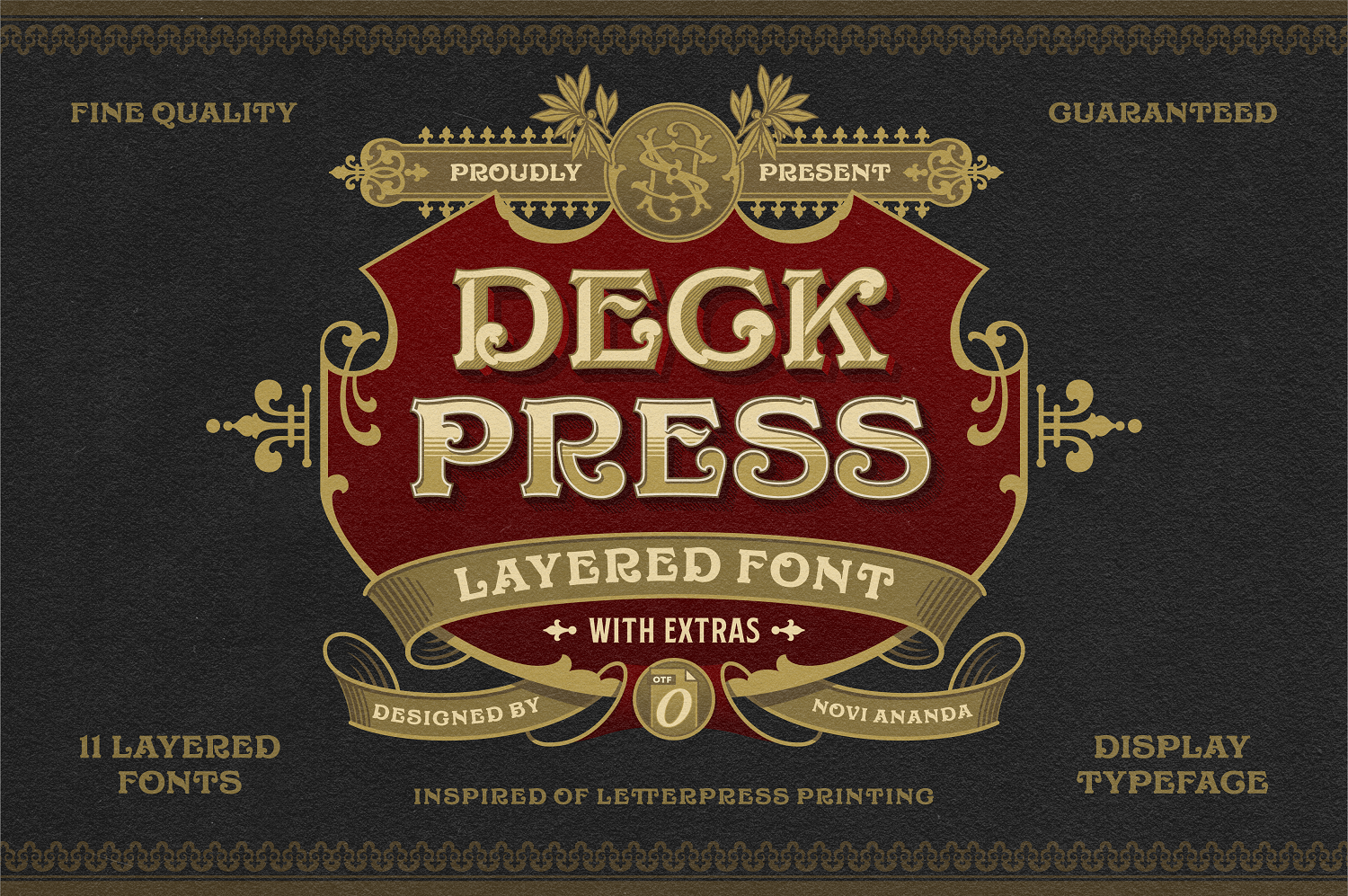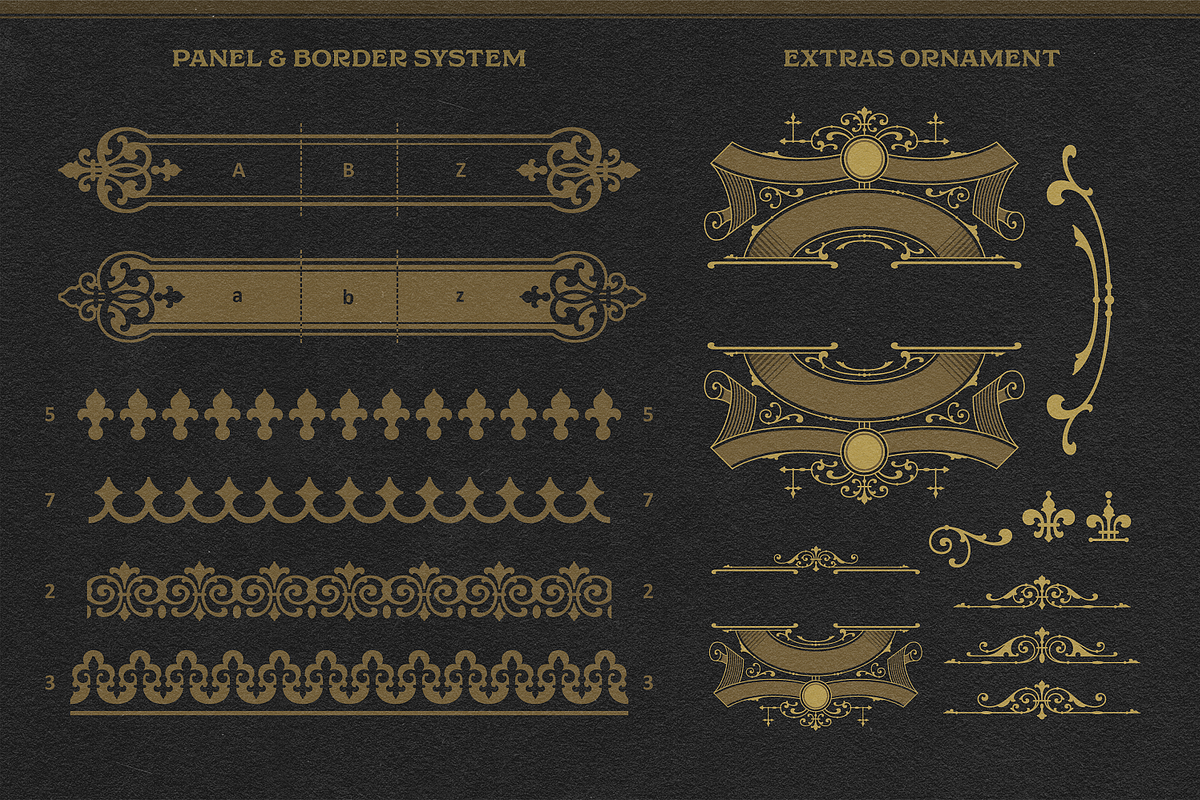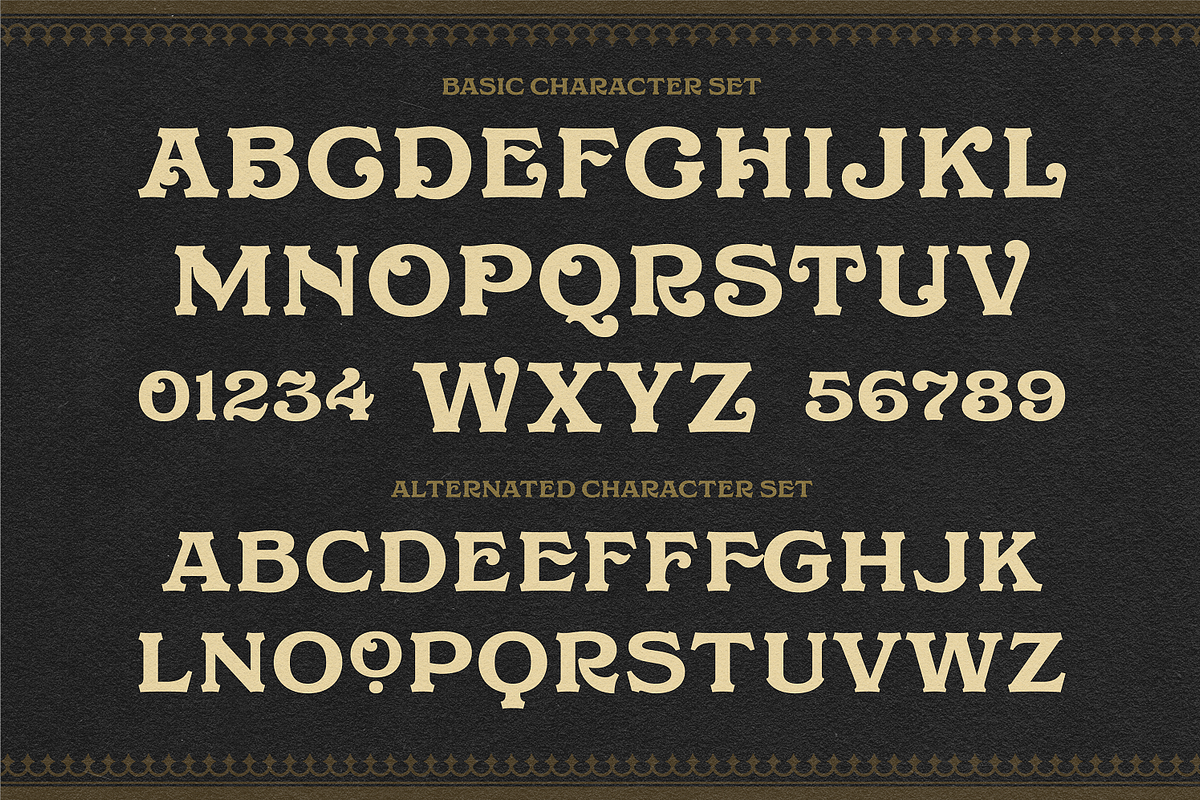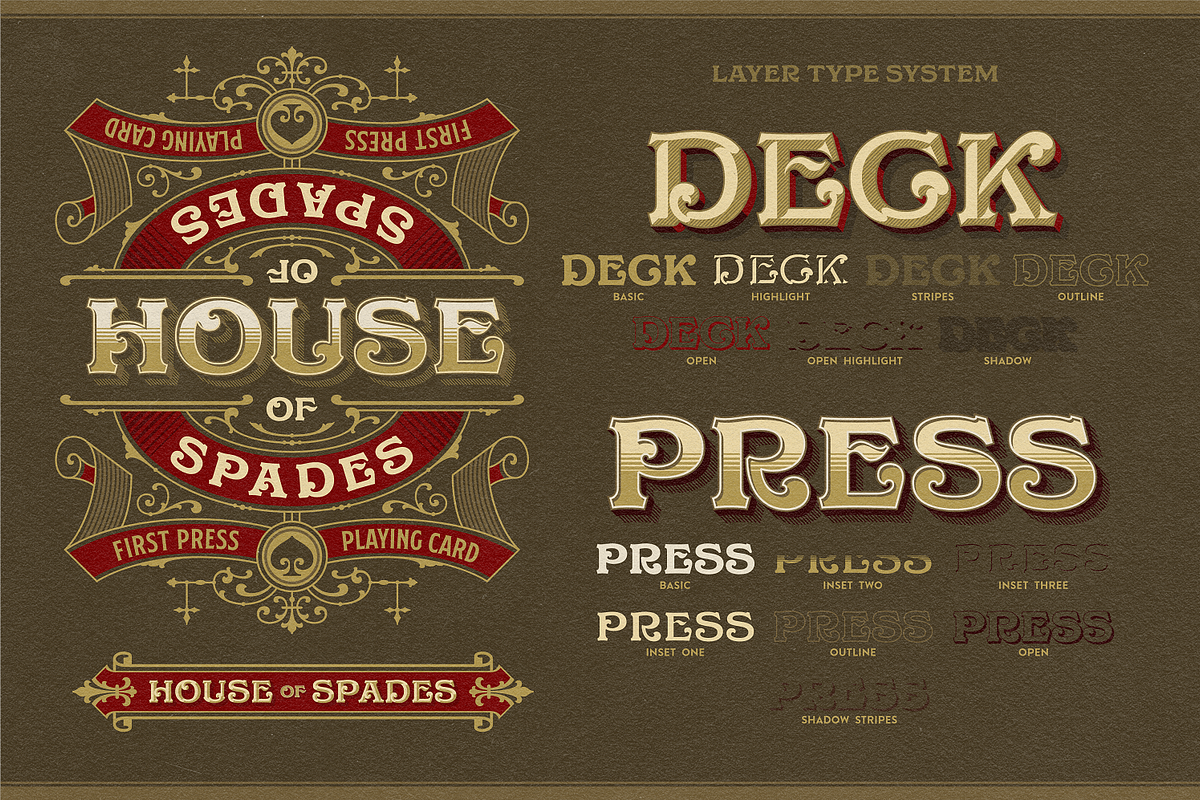
NS Deckpress Font + Extras
Inspired from the letterpress achieve and printed media from the 19th century. We talk about headlines, labels, playing cards, postcards, book covers, signs, and many more. That's where the DECKPRESS has risen. An old vibes all-caps fonts, armored with the robust yet decorative ornamental slab-serif style. Double up the majestic, it comes with the layered style to give an amplification back to the vintage era. It is an inevitable partner for your classical heritage touch of visuals such as signage, logotype, sign painting, label, header, ornamental typographic design, you name it, old sports.